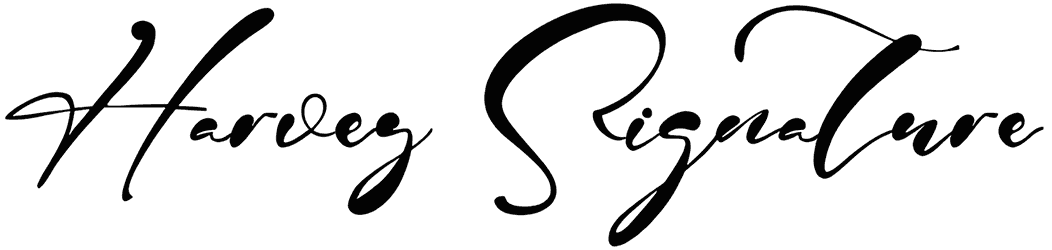
Harvey Signature Font
Swing the words and create a romantic design that can melt the hearts of your audience. This calligraphy font, named Harvey Signature, with its dancing letters, would be an ace choice for any modern or classic design. With an almost full cover of characters, this signature font will work well to illustrate your layouts, for instance, tattoos, invitation cards, fashion ads, and the like.